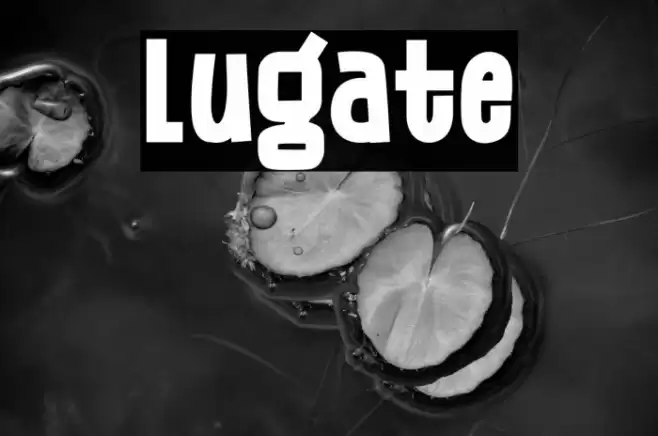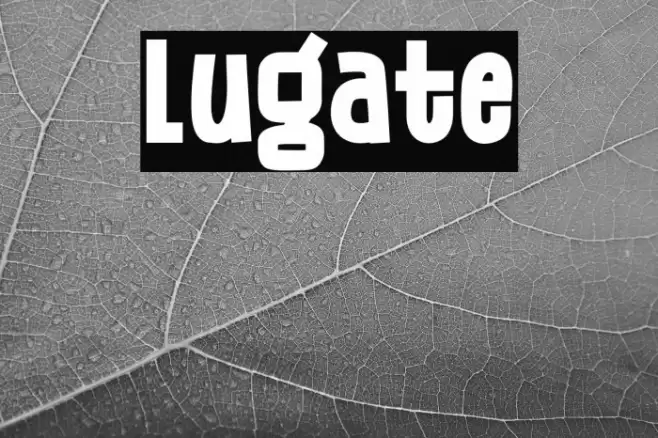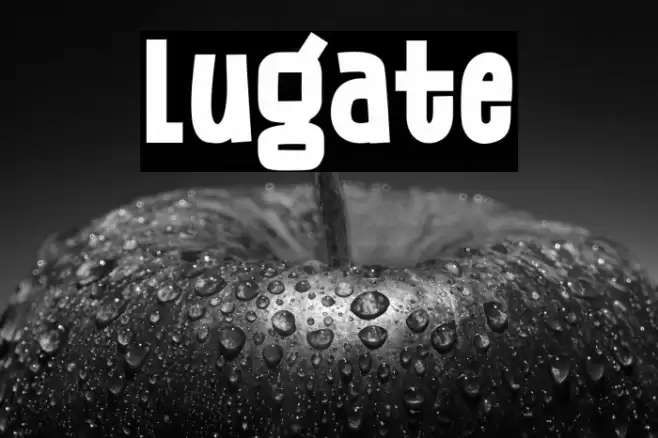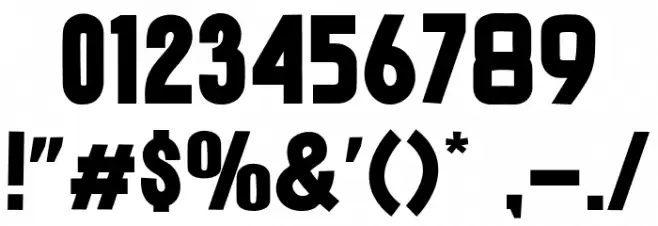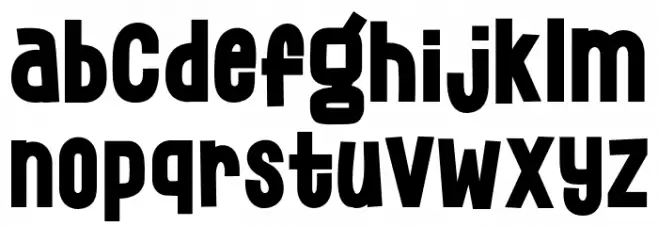
Lugate Font
Lugate Description
This font features a bold and striking appearance with thick, uniform strokes that give it a strong presence. The characters are slightly condensed, contributing to a compact and impactful look. The uppercase letters are tall and commanding, while the lowercase letters maintain a consistent style, offering a harmonious balance. The numbers are robust and easily readable, matching the overall boldness of the alphabet. Special characters are designed with the same bold strokes, ensuring consistency across all elements. This font's style is modern and assertive, making it suitable for attention-grabbing designs.
A bold, modern font with thick, uniform strokes and a slightly condensed style from Cartoon fonts.
- Proposed Projects: Ideal for posters, headlines, branding, and any design requiring a strong visual impact.
- Width: Condensed